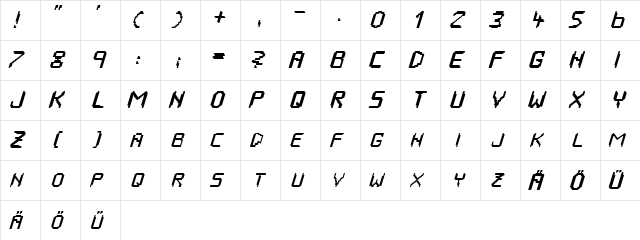
HOUSEPIPES Italic
Design Context for HOUSEPIPES Typeface
HOUSEPIPES is a composed and adaptable typeface that performs quietly and consistently across a wide range of design contexts. The dynamic lean of this cut emphasises speed and emphasis in any layout.